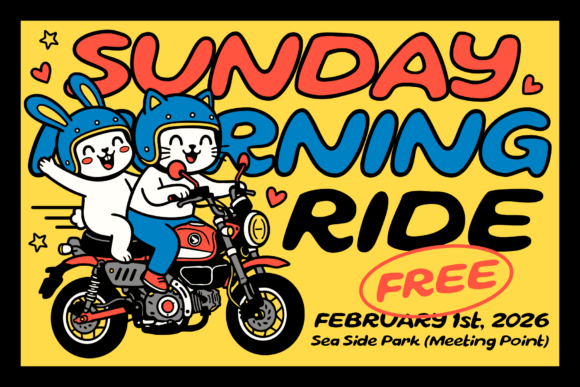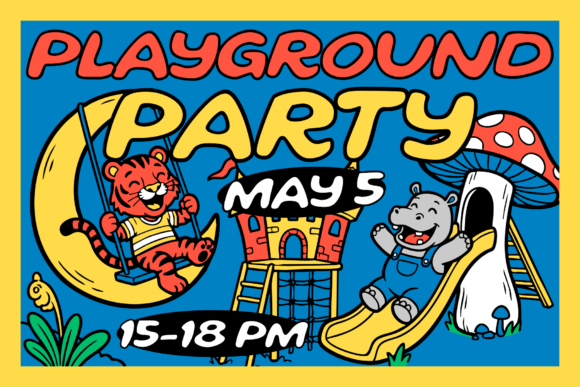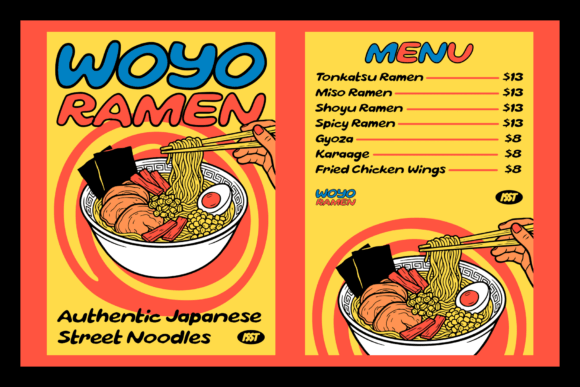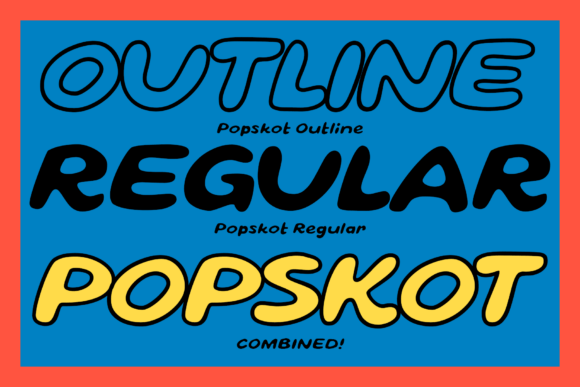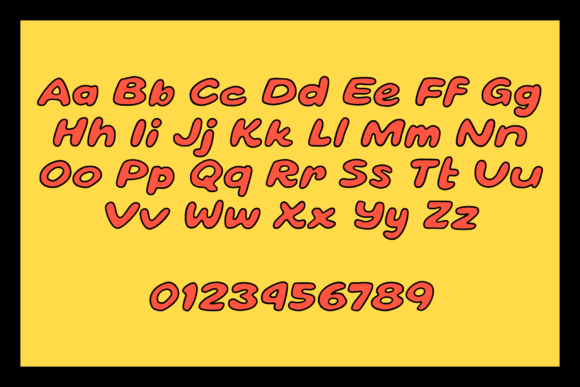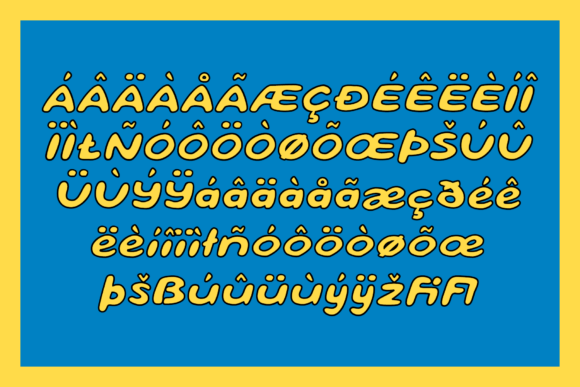
Introduction to Popskot Font
Have you ever stared at a blank canvas, wondering how to bring your creative vision to life? The blank page can be intimidating, but what if you had the perfect tool to help you make a statement? For designers, finding the right design resource can be the difference between a nice project and a truly show-stopping one. That’s where Popskot Font comes in – a hand-drawn powerhouse designed to make your headlines jump off the screen.
With its bold, bouncy aesthetics, Popskot Font is perfect for anyone looking to add a high-quality touch to their creative project. Whether you’re working on a brand identity, event poster, or social media content, this duo-font system is a game-changer. And the best part? It’s incredibly easy to use, even for those who aren’t design experts.
So, what sets Popskot Font apart? Let’s dive in and explore the magic behind this design system.
Key Features of Popskot Font
- High-quality design resource for creative projects, offering a unique and modern aesthetic.
- Perfect for use in a variety of creative projects, from logos and branding to digital art and graphics.
Honest Review: Popskot Font
I recently had the chance to work with the Popskot Font, and I must say it’s been a game-changer for my design projects. This high-quality font is a fantastic resource for any creative project that requires a fun and playful vibe.
- ✨ The font’s unique design and versatility make it perfect for a wide range of applications, from logos to advertisements.
- ✨ The transparent background allows for easy editing and customization, giving me complete control over the design.
- ⚠️ The font’s bold style can be a bit overwhelming at times, and it may not be suitable for all types of projects.
- ⚠️ The font’s size and spacing can be a bit inconsistent, which may require some adjustments in certain contexts.
Overall, I’m thoroughly impressed with the Popskot Font. Its unique design and high-quality features make it a valuable addition to any design resource. I’d definitely recommend it to fellow designers looking to add some creativity to their projects.
The Popskot Font is a high-quality design resource perfect for any creative project. With a transparent background, this font is ideal for overlaying text on images or using as a standalone design element.
Tips for Getting the Most Out of Popskot Font
To get the most out of the Popskot Font, use it in combination with other design elements to create a visually appealing and cohesive design.
The Popskot Font is ideal for use in social media graphics, blog posts, and other online content. It’s also great for use in presentations, posters, and